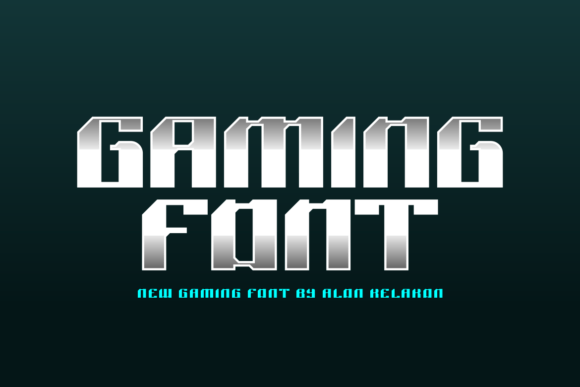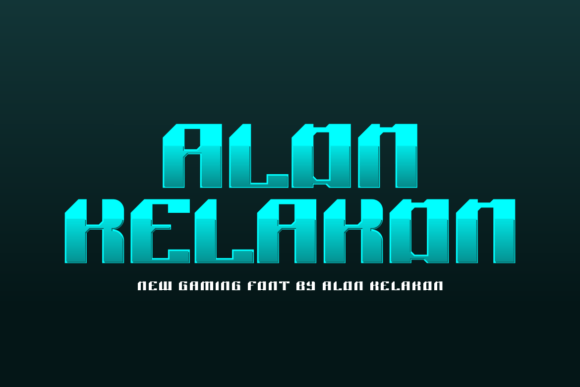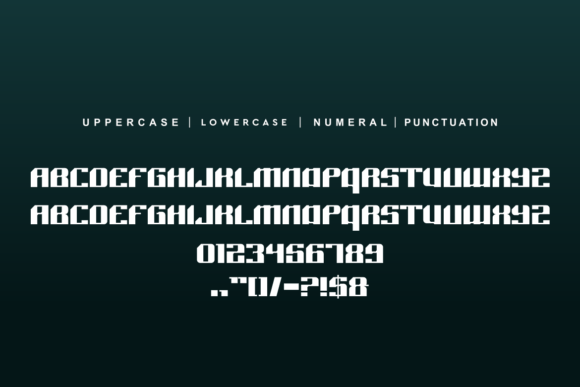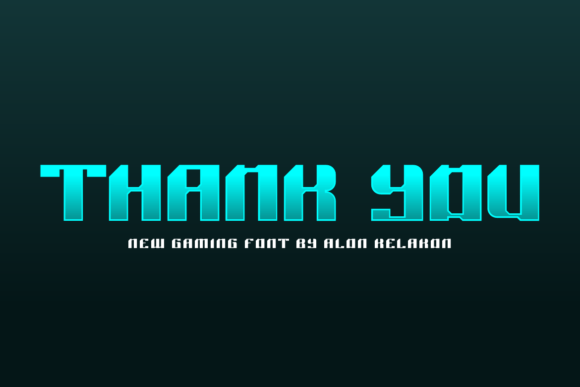
The Quest for the Perfect Gaming Font: Discovering Basic Gaming
I’ll never forget the time I was working on a project for a gaming client, and I just couldn’t find the right font to match their brand’s futuristic vibe. I scoured the internet, tried out countless fonts, but nothing seemed quite right. That was until I stumbled upon Basic Gaming – a font that perfectly captured the essence of technology and gaming. In this article, I’ll share my experience with Basic Gaming, its features, and how to make the most of it in your designs.
A First Impression: What Makes Basic Gaming Special
Basic Gaming is a futuristic font inspired by the visual language of technology, sci-fi movies, games, and modern gadgets. Its minimalist style and unique letterforms make it a perfect choice for logos, labels, posters, packaging, books, movies, presentations, games, and more. The font’s sleek and modern design ensures that your project stands out in a crowded digital landscape.
Here’s what I love about Basic Gaming:
- ✨ Unique and futuristic design that instantly grabs attention
- ✅ Highly versatile and can be used for a wide range of projects
- 🔥 Perfect for gaming and tech-related brands that want to convey a sense of innovation and cutting-edge technology
- 💻 Works well in both digital and print formats, making it a great choice for various applications
And here are some minor quirks to consider:
- 🤔 Some letters may require adjustment to achieve optimal spacing and readability, especially in larger blocks of text
- ⚠️ May not be suitable for body text due to its futuristic and condensed design, which can be challenging to read in long passages
The Story Behind Basic Gaming: Designer Inspiration
The story behind Basic Gaming is one of passion and inspiration. The font was created by a designer who was fascinated by the visual language of technology and gaming. Drawing inspiration from sci-fi movies, futuristic gadgets, and modern design trends, the designer aimed to create a font that captures the essence of innovation and cutting-edge technology. Through Basic Gaming, the designer invites you to explore the intersection of technology and design.
| Author | alonkelakon |
| What is Basic Gaming font? | Basic Gaming is a futuristic font inspired by technology, sci-fi movies, games, and modern gadgets. |
| What type of projects is Basic Gaming suitable for? | Basic Gaming is perfect for logos, labels, posters, packaging, books, movies, presentations, games, and more. |